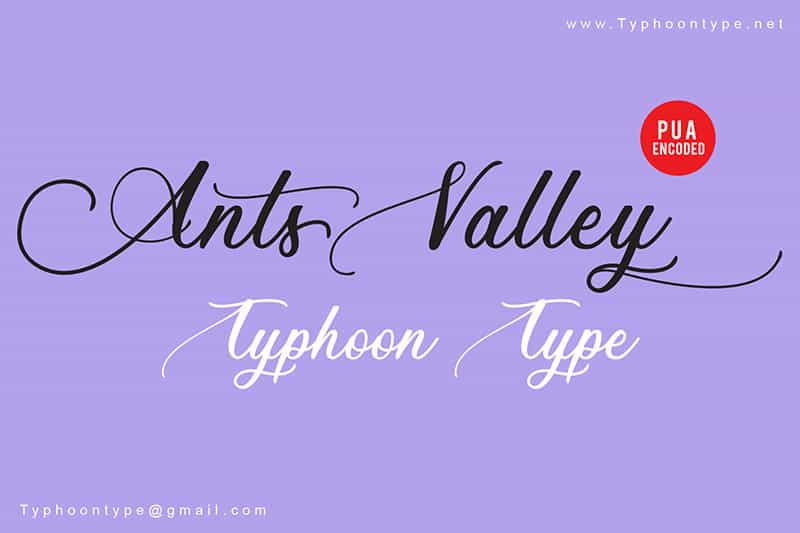
Ants Valley is a sweet and delicious script that will help to enhance any craft with its magical swashes. It is created by Typhoon Type™ – Suthi Srisopha and you can use it for free and for personal use only. The free version comprises of all the capital as well as the small letters and several special characters.